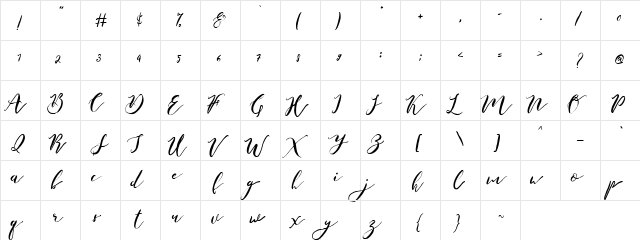
Catandra Brush Script Regular
| Foundry | LinetoType & Mercurial Type |
| Designer | Sarwo Edi |
Design Context for Catandra Brush Script Typeface
Catandra Brush Script brings a calligraphic fluidity to the page — its connecting strokes and expressive curves give it an unmistakably human quality.
Font Pairing: Combine Catandra Brush Script with a simple geometric sans for maximum contrast — the tension between flowing curves and clean structure is a classic typographic pairing.
Pro Tip: Pair Catandra Brush Script with a clean sans-serif for supporting text. The contrast between fluid script and geometric structure creates an elegant typographic hierarchy.